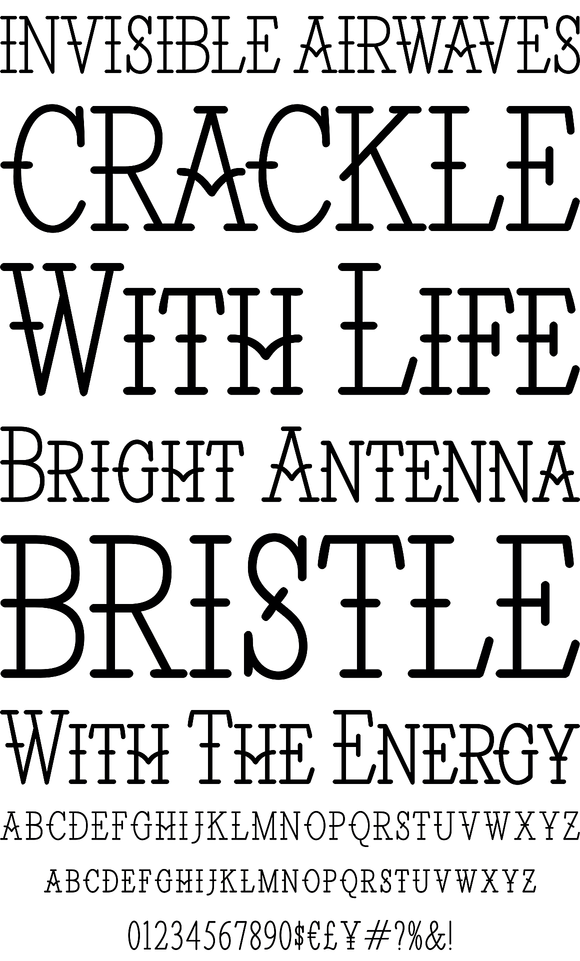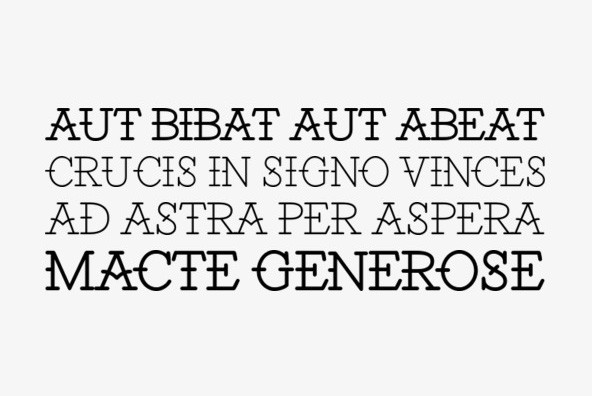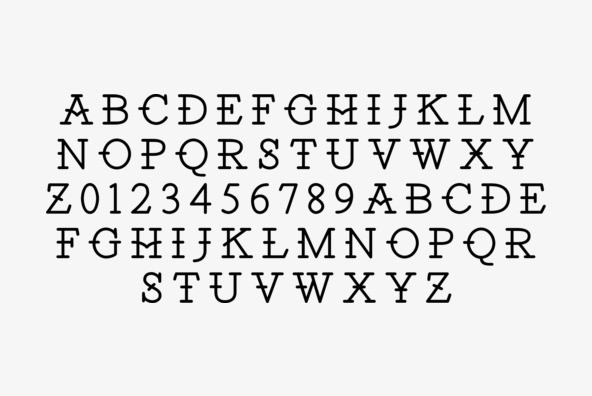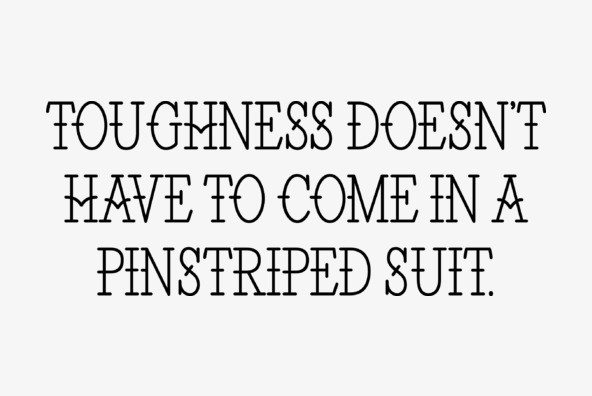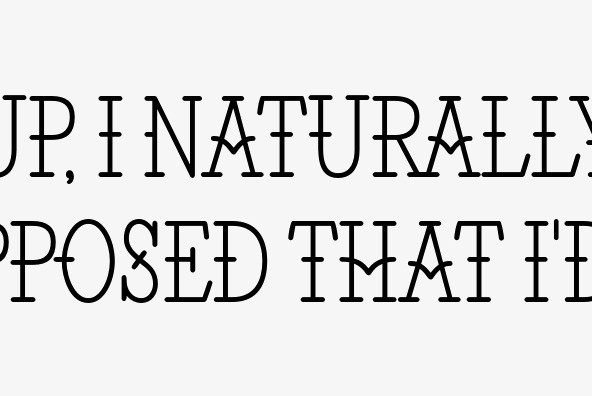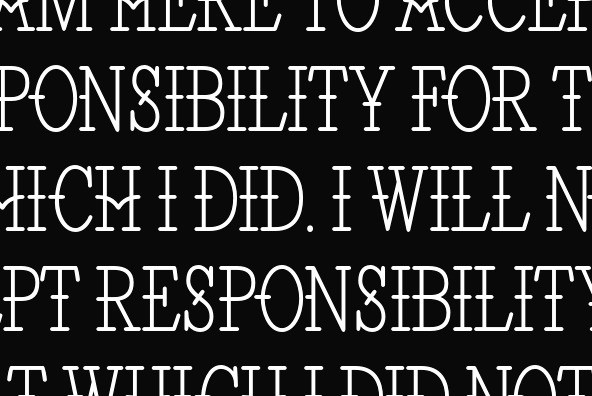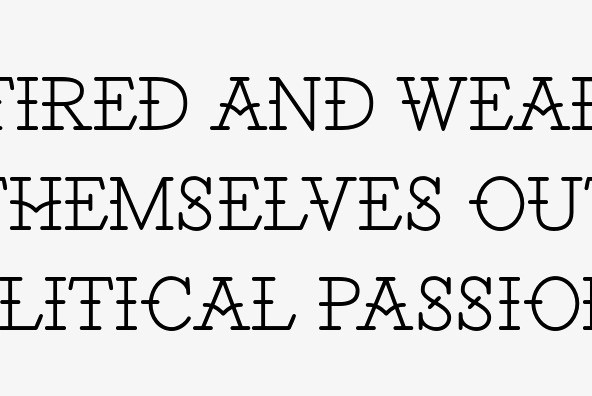
Santiago
Foundry: Breaking The Norm
Santiago is a western wanted poster influenced typestyle with a clean and friendly feel to it. Almost comic like in its simple and clean appearance, with caps vs. smallcaps settings, and a variety of weights and widths from condensed to wide, regular to bold, and even a shadow style.